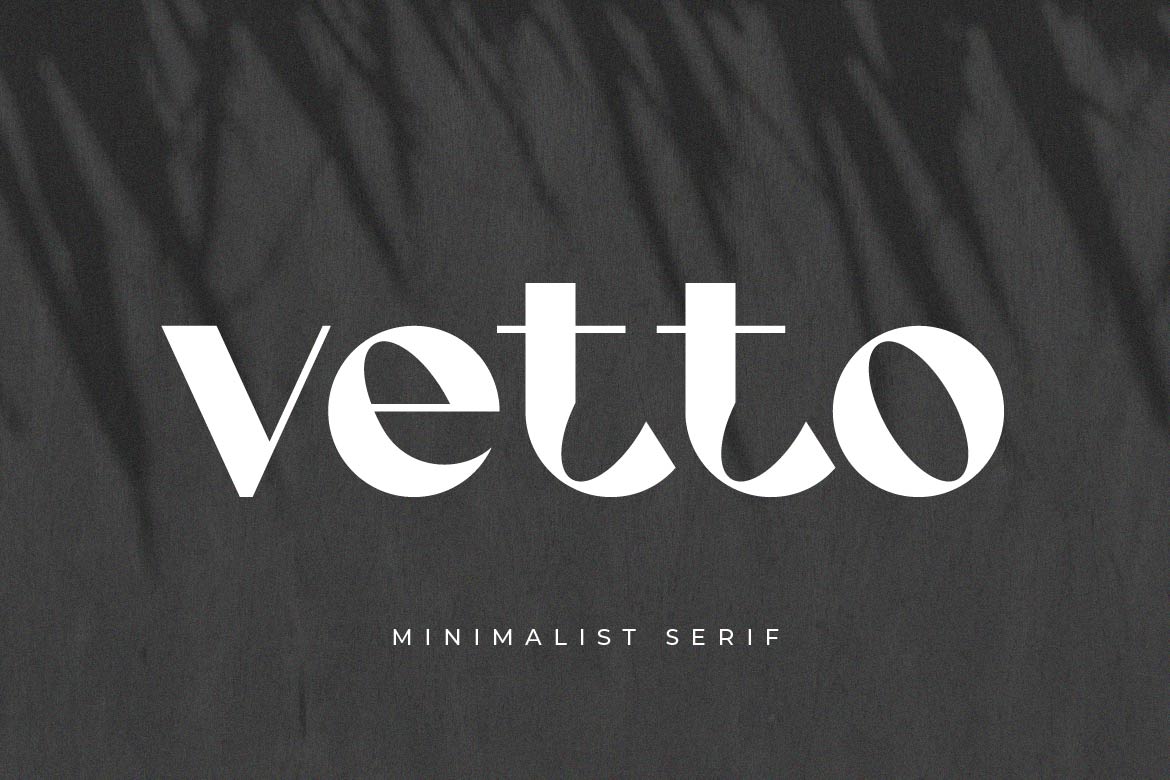
- Vetto – Luxury Sans Serif Font for Boutique & Beauty Branding
Vetto is a premium luxury sans serif typeface designed for elegant and feminine branding. With clean lines, refined proportions, and a modern aesthetic, Vetto delivers a sophisticated and high-end look that fits perfectly in boutique, fashion, beauty, and makeup industries.
Its minimalist structure creates a sense of clarity and exclusivity, making it ideal for logos, packaging, product labels, social media, and lifestyle branding. Vetto balances simplicity with elegance, allowing your brand to feel modern, polished, and visually premium across both print and digital platforms.
Perfect for cosmetic brands, boutiques, skincare products, and women-focused businesses, Vetto brings a fresh, contemporary luxury feel to every design.
Vetto is not just a font — it’s a modern expression of beauty, elegance, and brand sophistication.